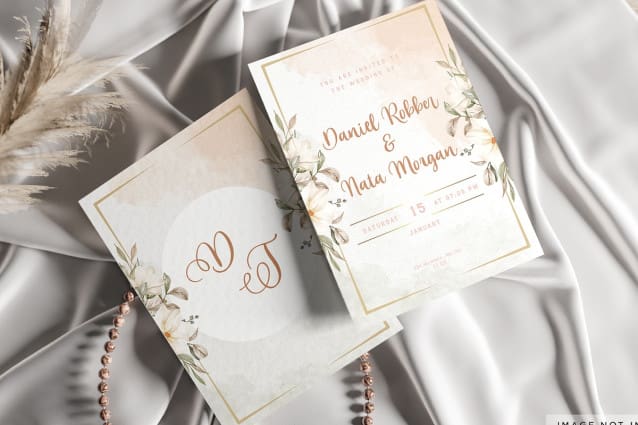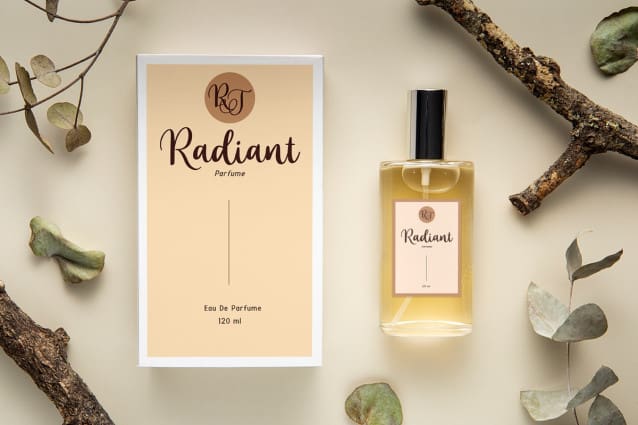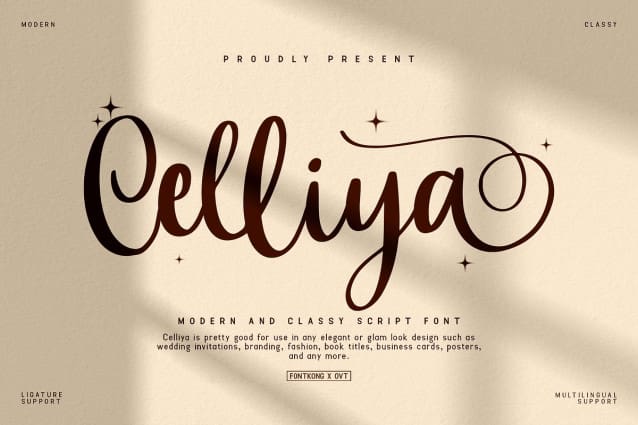
Celliya Script Font
Celliya Script Font, a modern and classy script font that epitomizes timeless elegance and sophistication. With its flowing lines and graceful flourishes, Celliya adds a touch of refinement to any design project.
Crafted with precision and care, Celliya strikes the perfect balance between modernity and classic charm. Whether you’re creating wedding invitations, branding materials, or elegant signage, this font exudes professionalism and grace.
Featuring a full range of characters, including alternates, ligatures, and swashes, Celliya Scriptoffers endless possibilities for customization. Its versatility and adaptability ensure that your typography stands out with individuality and flair.
Elevate your designs to new heights with the refined beauty and timeless sophistication of Celliya.